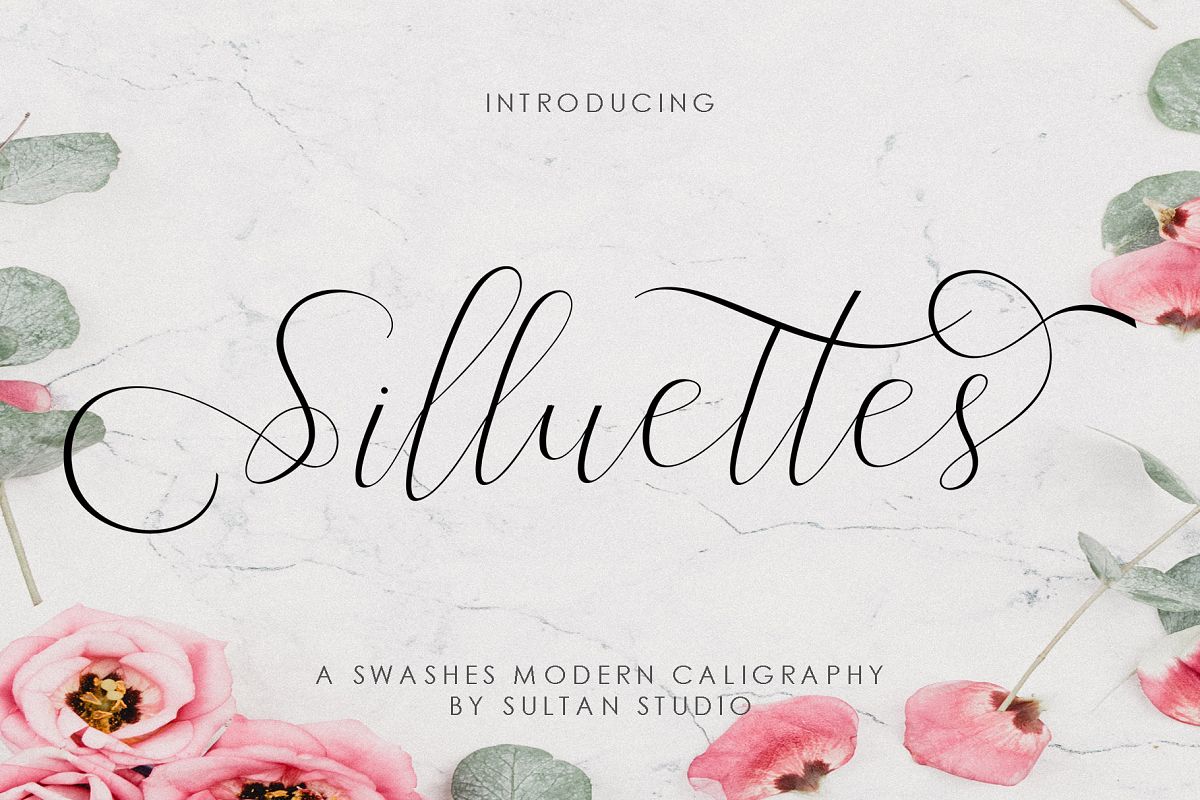
Silluettes modern swase calligraphy has romantic and modern calligraphy, ready to give your design Fresh and extraordinary style.Silluettes modern swase calligraphy comes as a single font file containing full of great features.Congratulations for weddings, branding and romantic invitations and also suitable for various purposes such as digital letters, titles, logos, wedding invitations, t-shirts, letterheads, signboards, and more !.Files include: